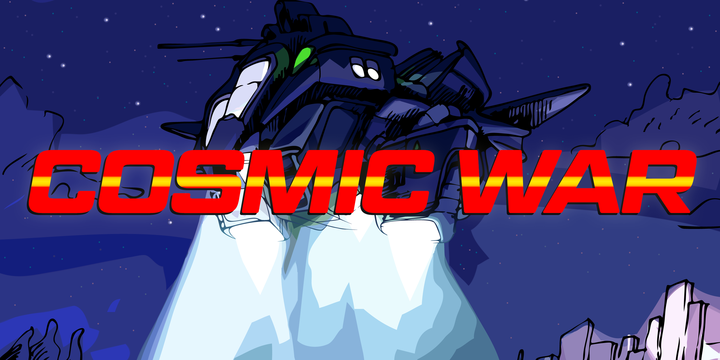
10 best sci-fi fonts
Give your work a space-age look with this collection of out-of-this-world fonts.
You may think there are lots of sci-fi films and TV shows out there, but they're just peanuts to the number of fonts floating around the internet. From handwriting fonts to graffiti fonts, there are hundreds of thousands of designs to choose from.
Today we're looking at sci-fi fonts, so set your phasers to stun and put your spacesuit on as we fly through 10 of the best space age typesets.
01. Sutton Who
Inspired by the 1980s neon tube Doctor Who logo (which itself was based on Formula One), this labour of love by Graham Kibble-White lets fans and designers recreate the font from the show's opening titles. Available as a three-font set, you can download this sci-fi font for free.
02. Star Jedi
Even the most sci-fi-adverse designers will recognise that the Star Jedi font bears a striking resemblance to a certain film saga set a long time ago in a galaxy far, far away. Based on the official Star Wars typeface, complete with all its tilting and various connections, this is the font you need if you want to make your own opening crawl. You can download it for free for both personal and commercial use.
03. Transformers
If you're a fan of those robots in disguise, this Transformers-style sci-fi font is for you. However instead of using the typeface from the original cartoon series, this set is based on the blockbuster films by Michael Bay. It's free to download and comes with numbers and symbols.
04. Matrix
With a scratchy, glitchy appearance that looks like you've just downloaded something seriously dodgy, Matrix is a font set based on the classic 1999 sci-fi film of the same name. Extended to the whole alphabet, including uppercase, lowercase, numbers and symbols, this is the perfect font for cyberpunks looking to free their minds. Grab it for personal use for free.
05. Dynatron
Sci-fi buffs will be all too familiar with the American pulp fiction magazine Amazing Stories. This stalwart publication has an important place in the history of science fiction, so if you want to emulate its style Dynatron is the sci-fi font to go for. Pick up both fonts in the family for £59.99.
06. Geom Graphic
Influenced by Japanese robot animations from the 80s, the Geom Graphic family is a geometric sans-serif font available in four weights with matching italics. It's ideally suited to futuristic logos, movies and games. Download the eight fonts for £89.99.
07. Space Colony
Starting out as sketches, Space Colony has been a few years in the making. The wait was worth it though, as this wide and geometric sci-fi font family would look perfect on cartoons, animations and character merchandise. You can get the six weights for £67.99.
08. Steel
With a chunky metallic finish that feels like it's fresh out of a Marvel movie adaptation, Steel is the font of choice if you need a type set that looks like it belongs in The Avengers. Available as part of a three-font family, you can buy it now for £55.99.
09. Deadspace
With its steep curves and tight formatting, Deadspace would look at home on a computer readout from a spacey Playstation 2 shooter. Give your projects a retro-futuristic look by downloading this font for £10.99.
10. Back to the Future 2002
Fonts don't come much more recognisable than the slanted typeface in the Back to the Future logo. With this family named after the time travel trilogy you get both the forwards and backwards slanted letterforms to play around with to your heart's delight. Download it for free.